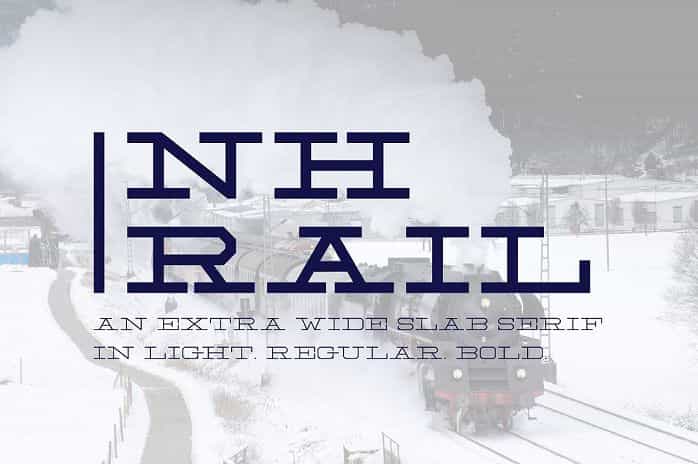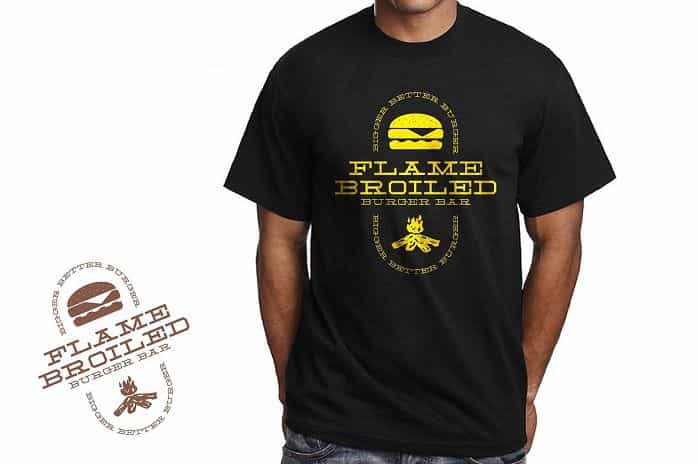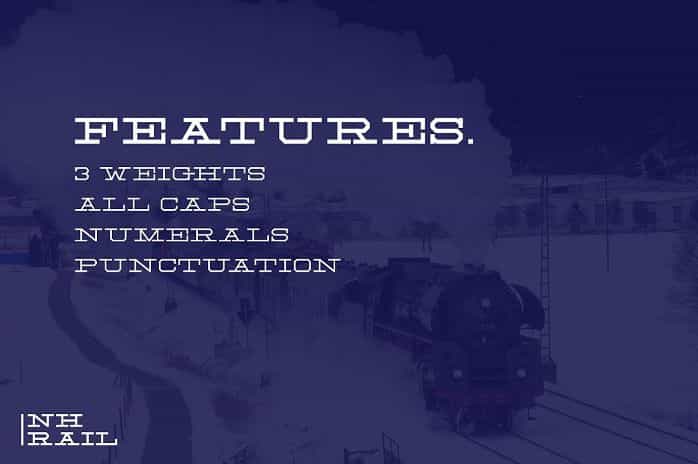
Introducing NH Rail Font. It is created by Von Type Co, this font belongs to the premium category and can be bought on creativemarket but it was so great that now you can get it for free. NH Rail Slab Typeface is an additional wide slab serif which was inspired by the old logo of the New Haven Railroad (1872-1968) designed by Herbert Matter. It is a combination of long and strong slab serifs with the modern block styling to create an impressive timeless look that gives a punch to any design & logo.